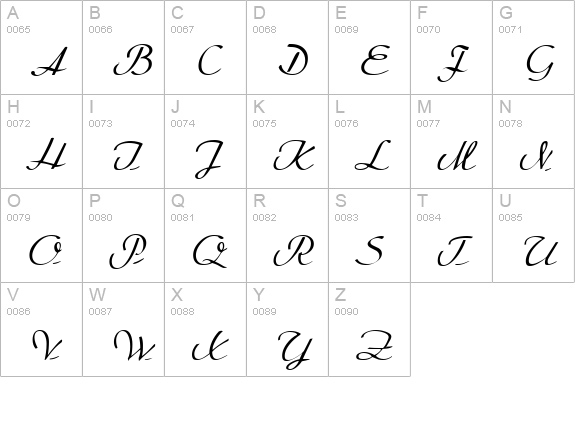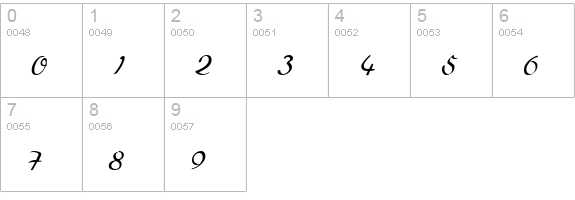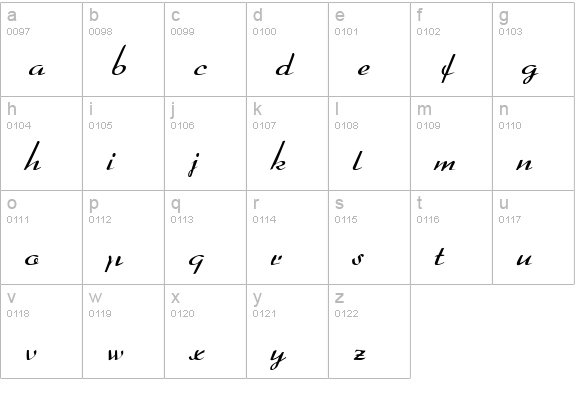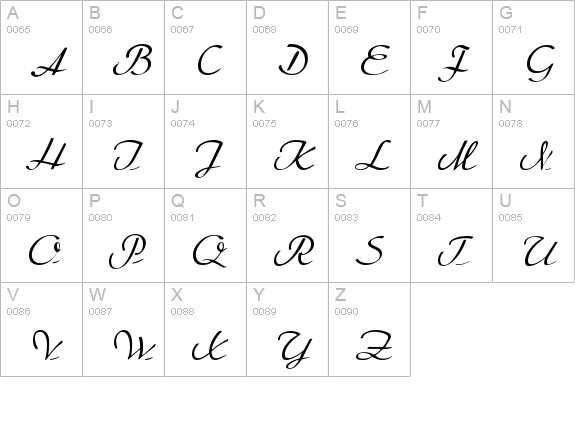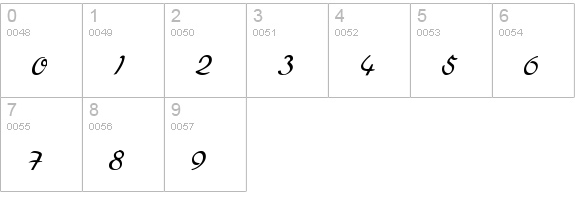
Dahrlin Regular Font Details
Dahrlin Regular is the standard, neutral variant in the Dahrlin typeface family \xE2\x80\x94 well suited to general body text, paragraphs, and standard typographic work.
Dahrlin Regular font is a stunning and versatile typeface that exudes elegance and sophistication. With its clean lines and balanced proportions, this font is perfect for a wide range of design projects, from logos and branding to editorial layouts and web design. The distinctive letterforms of Dahrlin Regular font make it instantly recognizable and memorable. Its classic yet contemporary style adds a touch of refinement to any design, making it a go-to choice for designers and creatives alike. One of the standout features of Dahrlin Regular font is its versatility. Whether you're looking to create a bold and impactful headline or a refined and delicate body text, this font has got you covered. It seamlessly adapts to various design styles and contexts, allowing you to express your creativity without limitations. And the best part? Dahrlin Regular font is available for free! You can easily download this font from FontsMarket.com, a trusted source for high-quality fonts. This means that you can enjoy the beauty and functionality of Dahrlin Regular font without spending a dime. So why wait? Unlock the potential of your design projects with Dahrlin Regular font. Its timeless charm and free availability make it a must-have in any designer's toolkit. Download it today and let your creativity soar.